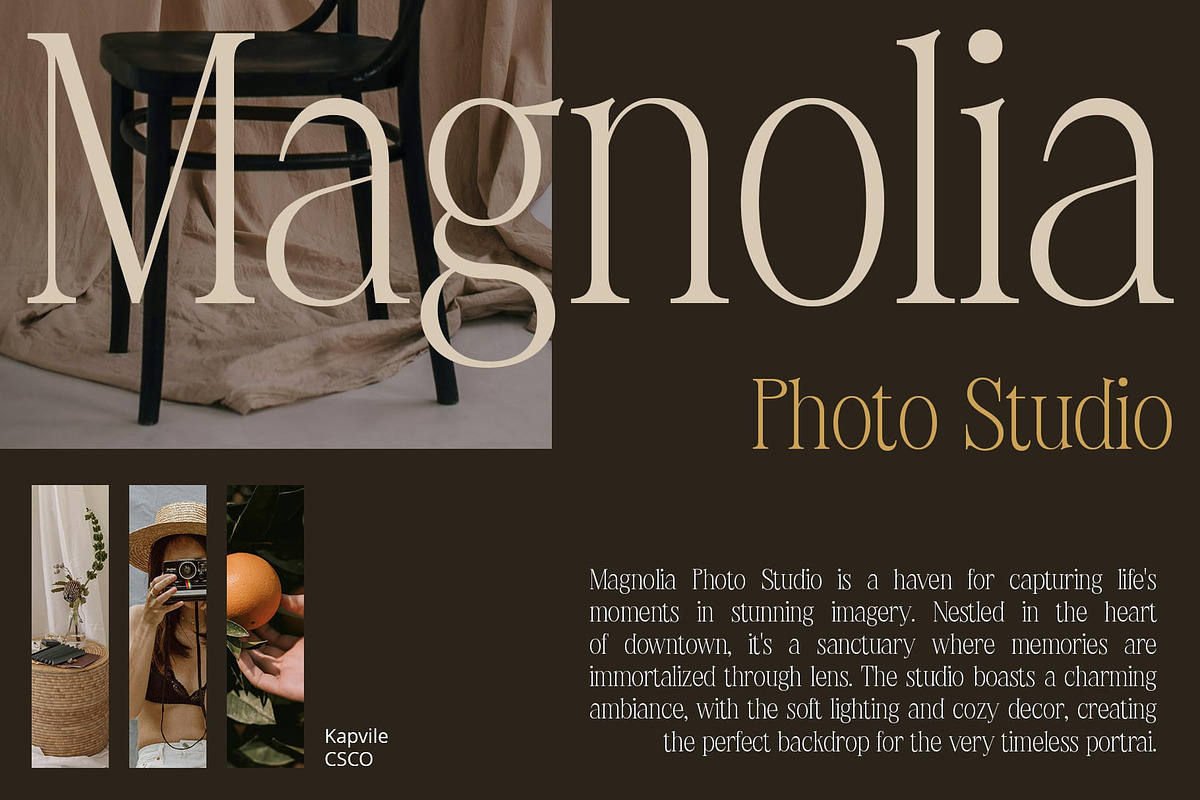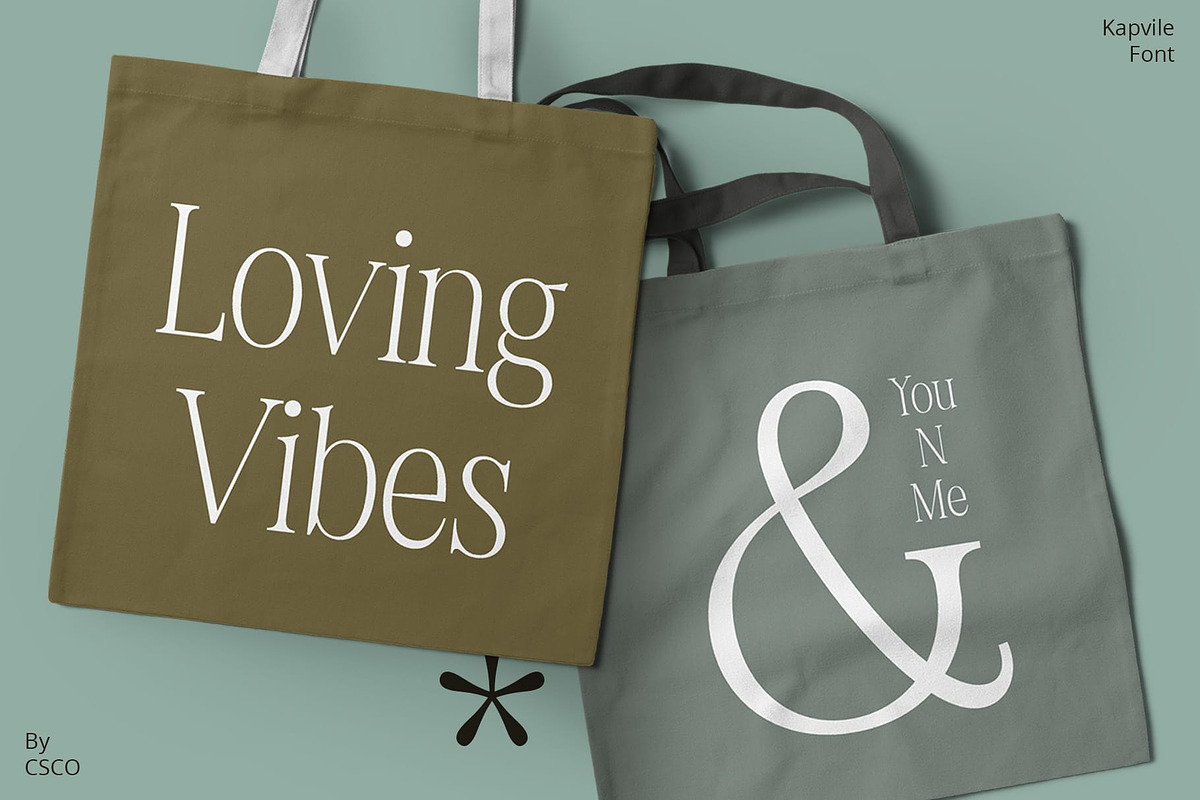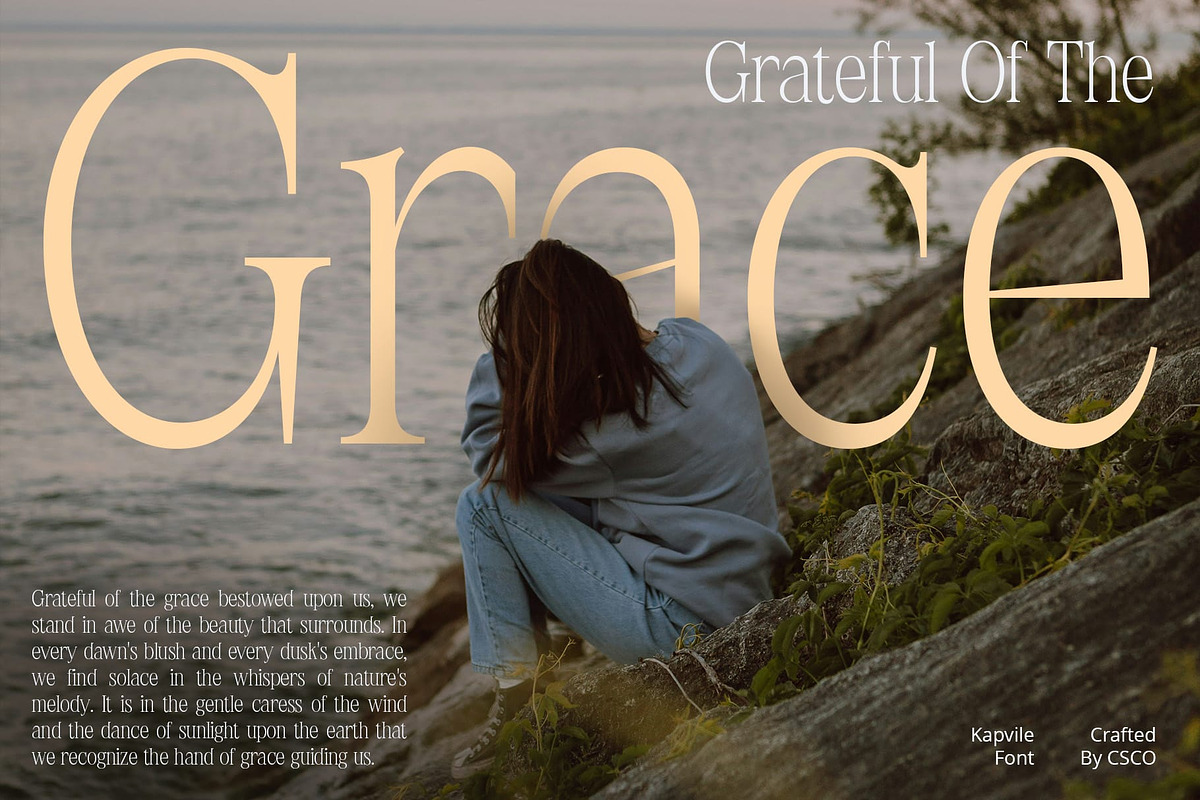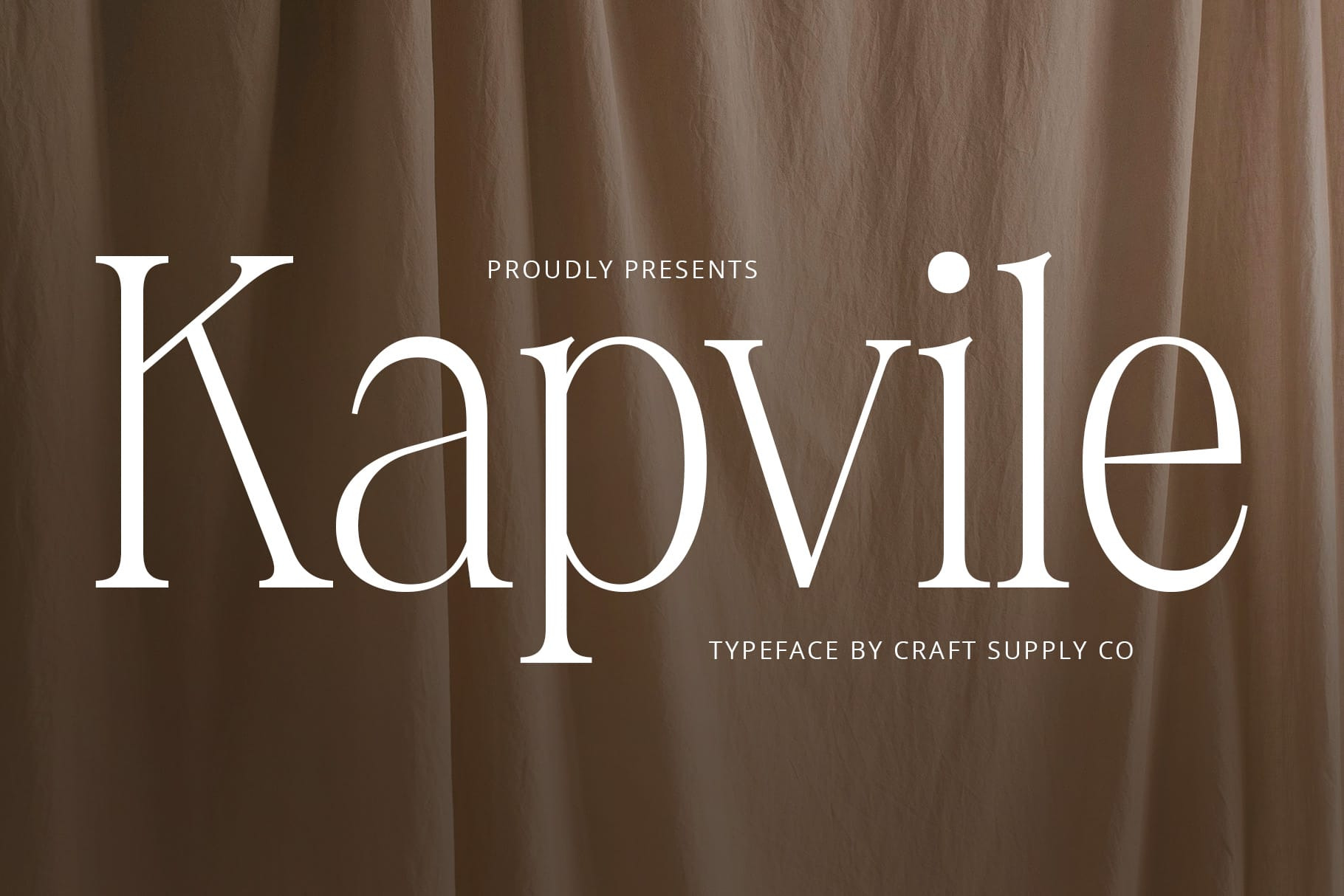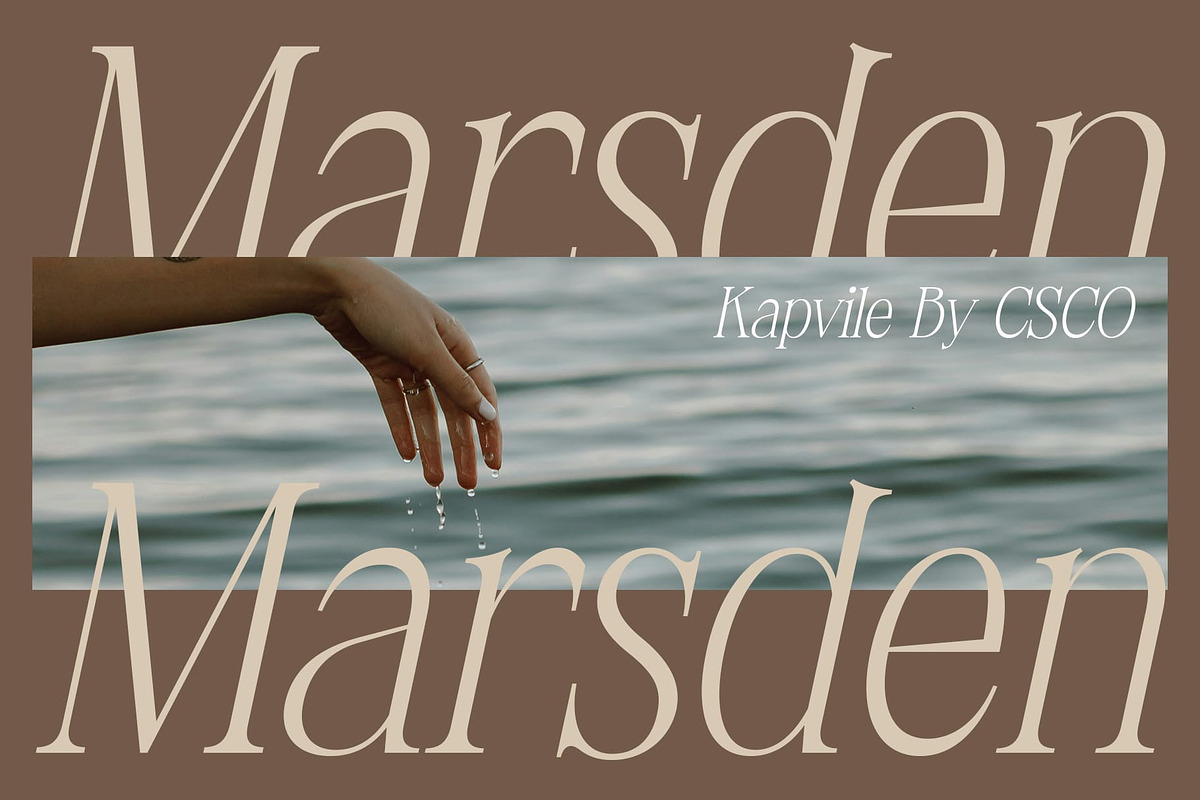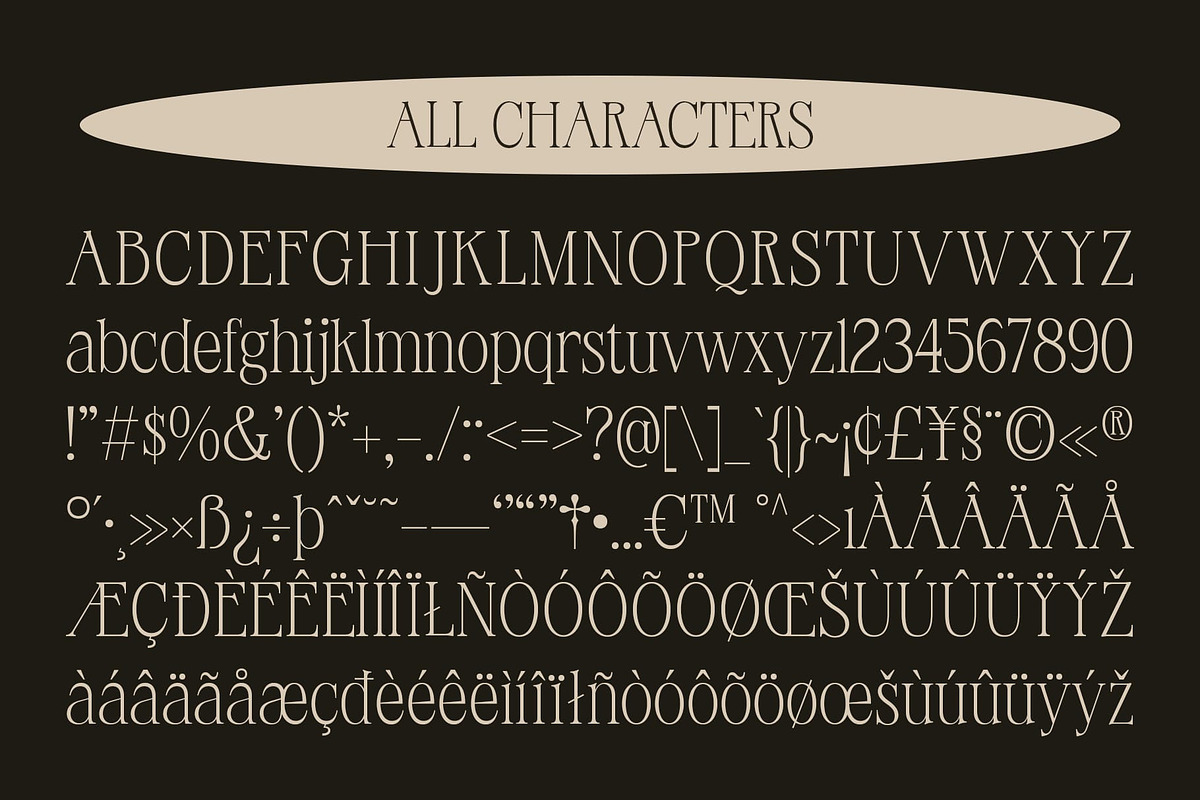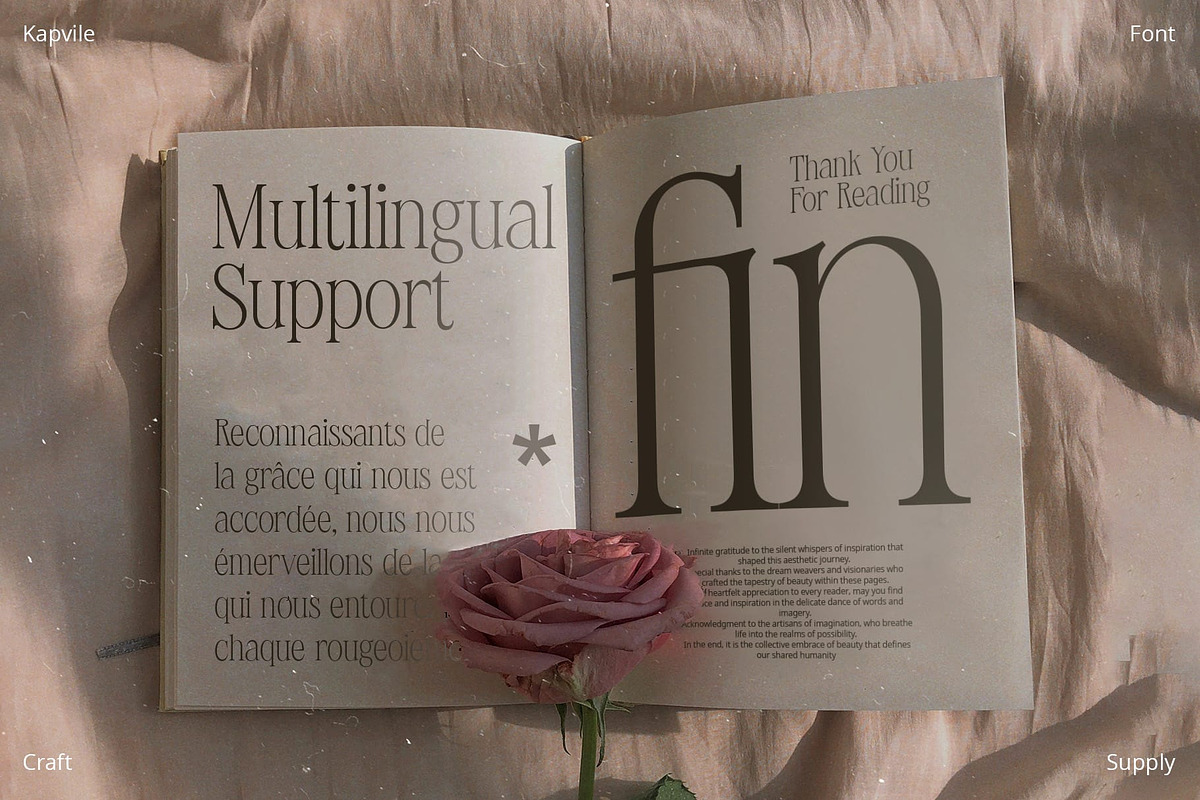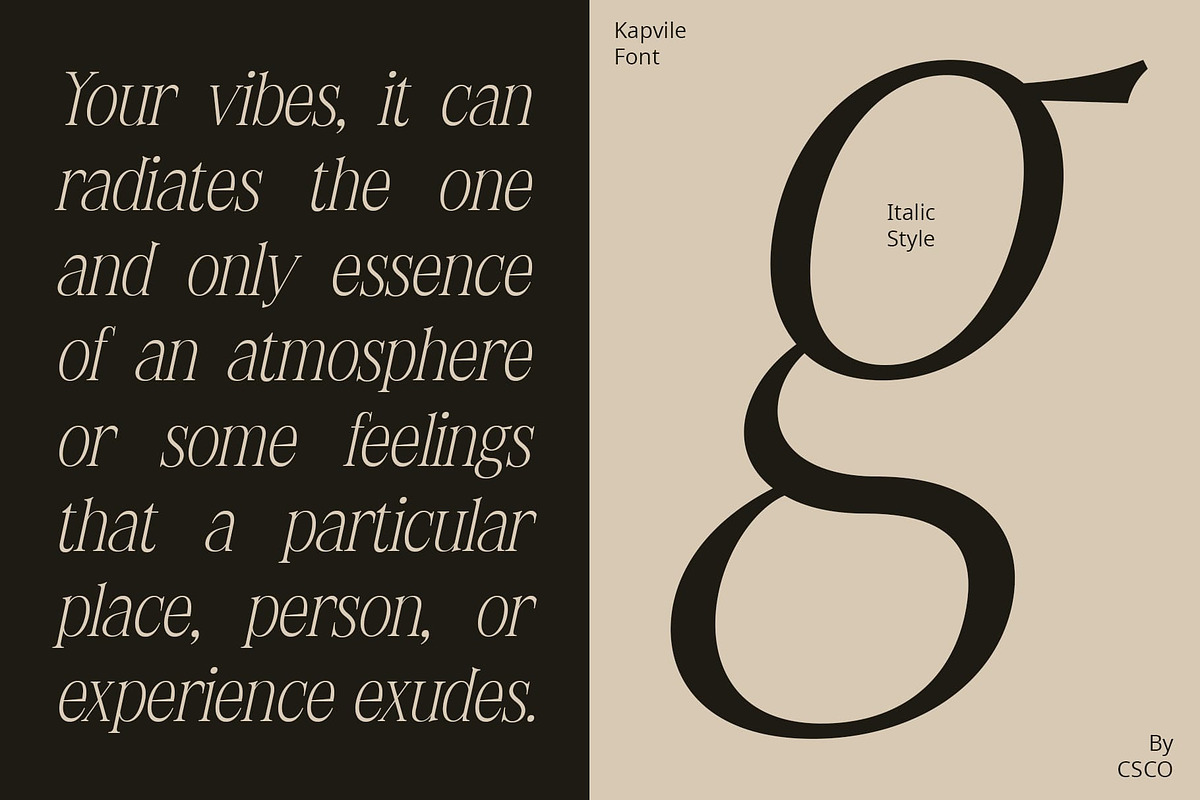
Kapvile – Elegant Font
Kapvile – Elegant Font: Where Elegance Meets Modernity
Sophisticated and Modern Design
Kapvile – Elegant Font is a sophisticated serif font designed to delight the eye with its elegant and modern design. Its sleek lines and classic serif details make it perfect for projects that require a touch of sophistication and style.
Versatile and Stylish
With its versatile design, Kapvile Font is suitable for a variety of uses, including headlines, body text, and branding. Its modern style adds a contemporary flair to any project, while its serif details ensure a classic and timeless look.
Enhanced Readability
Kapvile Font prioritizes readability, ensuring that your message is clear and easy to understand. Whether used in print or digital media, this font maintains legibility even at small sizes.
Perfect for Elegant Designs
Whether you’re designing a wedding invitation, a logo, or a website, Kapvile Font is the perfect choice for projects that require an elegant and modern aesthetic. Its timeless design ensures that your work will always look stylish and sophisticated.
- Kapvile Regular
- Kapvile Italic